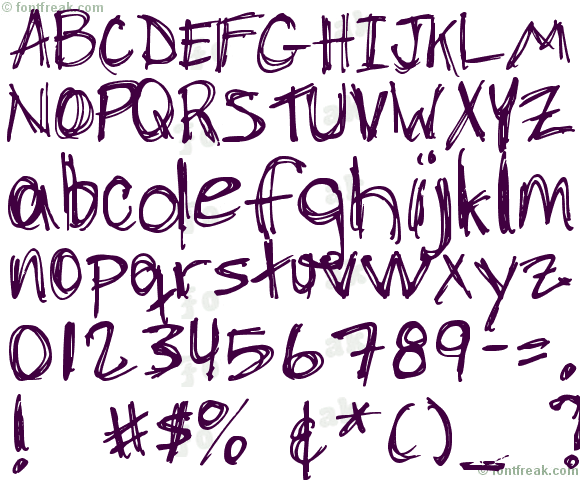
DJB Chicken Skratchez
About DJB Chicken Skratchez
DJB Chicken Skratchez, created by Darcy Baldwin, is a playful display typeface that brings a fun and quirky touch to any design project. This font is characterized by its unique handwritten style, featuring irregular stroke weights that evoke a sense of spontaneity and creativity. The contrast between thick and thin lines adds visual interest, while the slightly uneven spacing enhances its casual, laid-back appearance. Decorative elements, such as playful loops and exaggerated curves, further contribute to its whimsical charm, making it an excellent choice for a variety of applications.
This typeface shines in use cases such as children's book covers, where its lively character can capture the imagination of young readers. It is also ideal for restaurant menus, particularly for casual dining spots or food trucks, where a friendly and inviting tone is desired. DJB Chicken Skratchez is perfect for crafting eye-catching promotional materials for events like birthday parties or festivals, giving a unique flair to flyers and posters. Additionally, it can be used effectively in social media graphics, helping content creators make their posts stand out with a personalized touch.